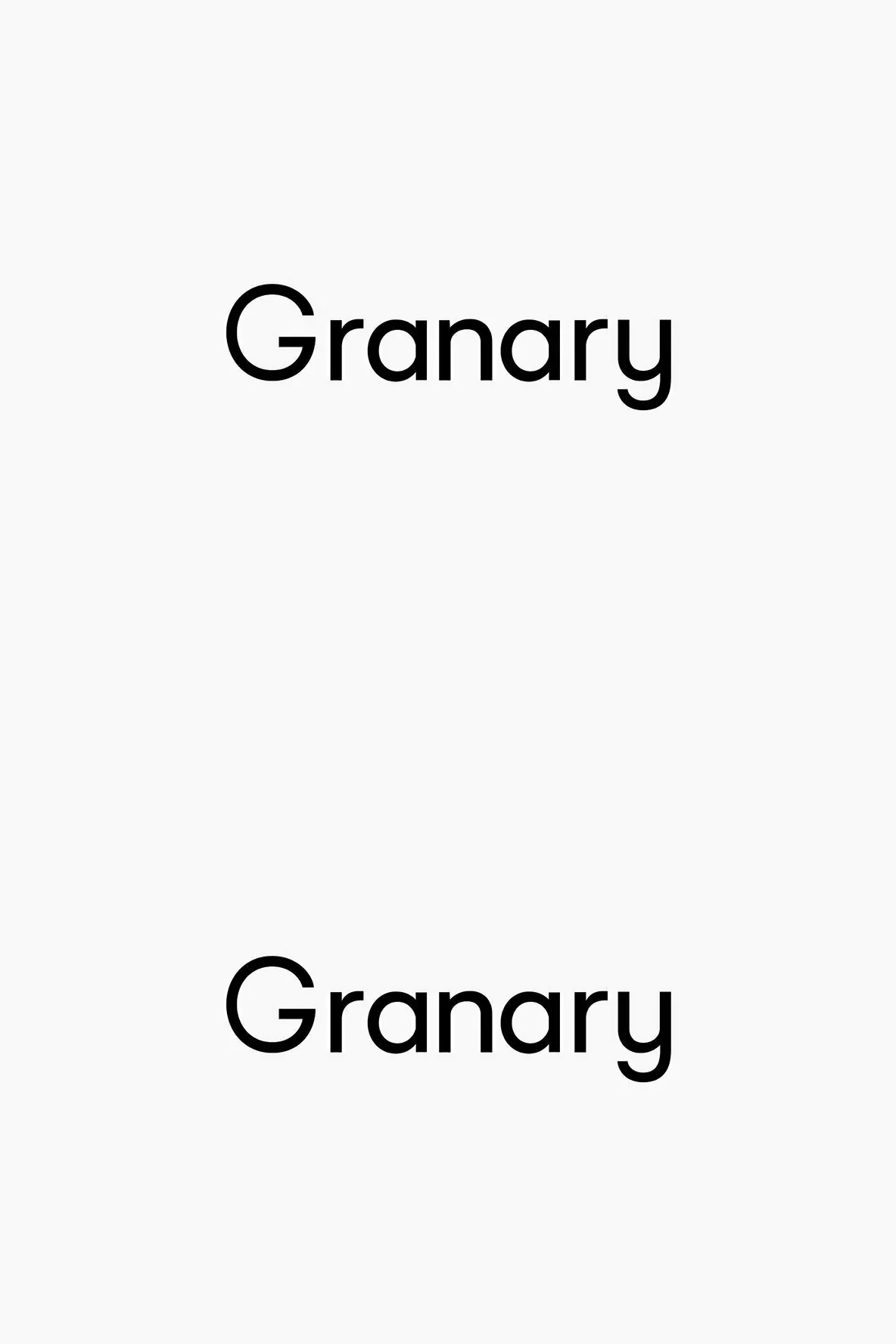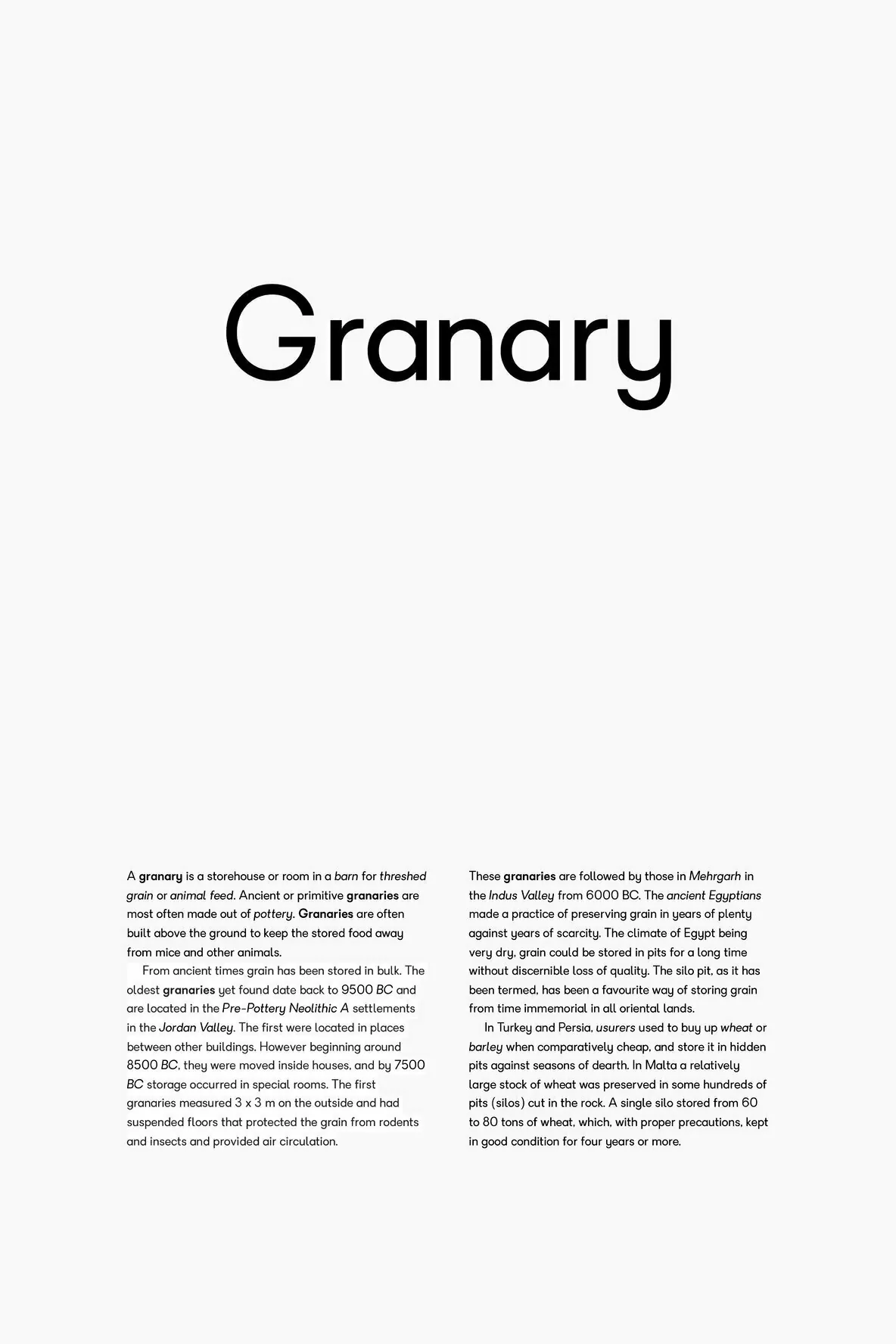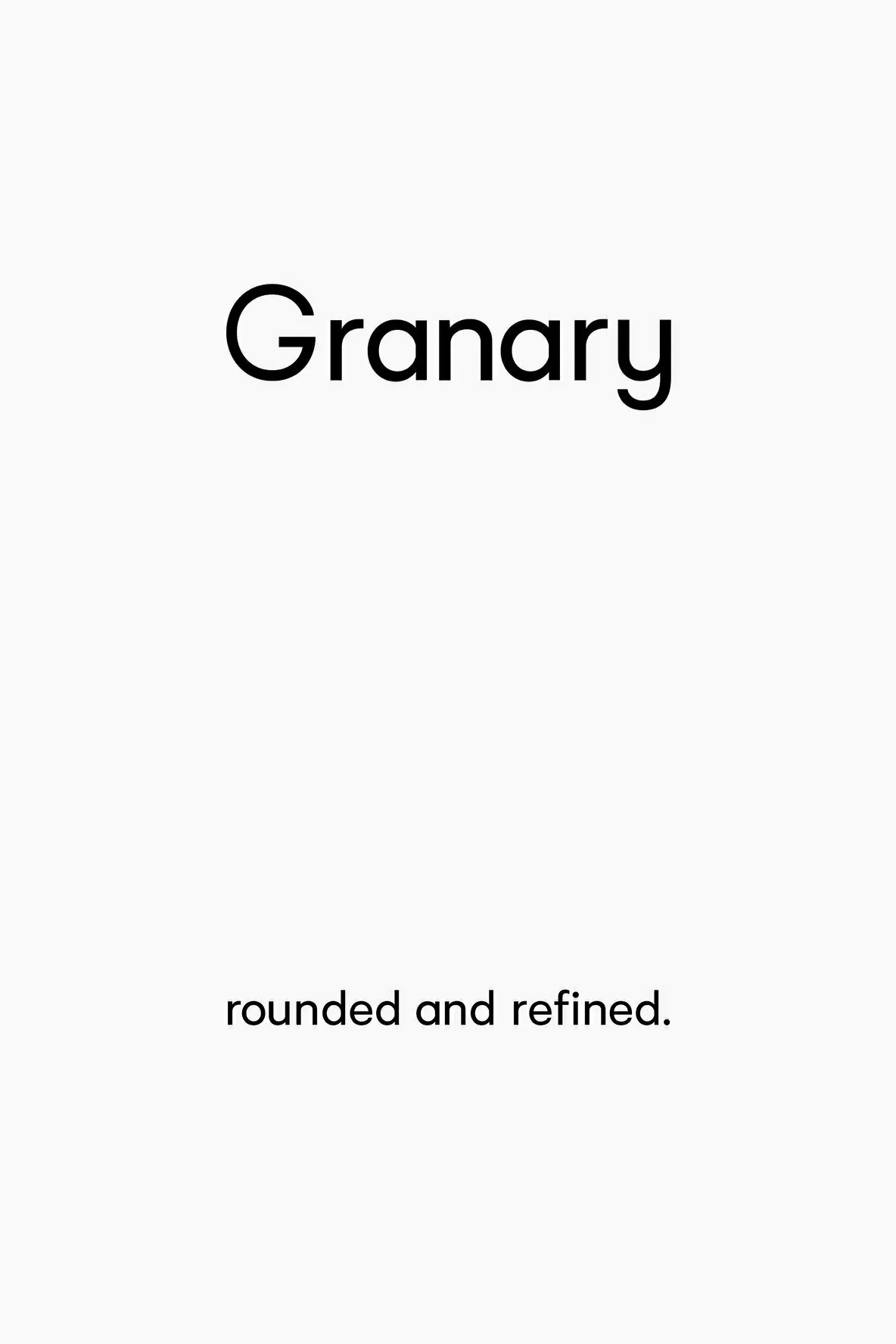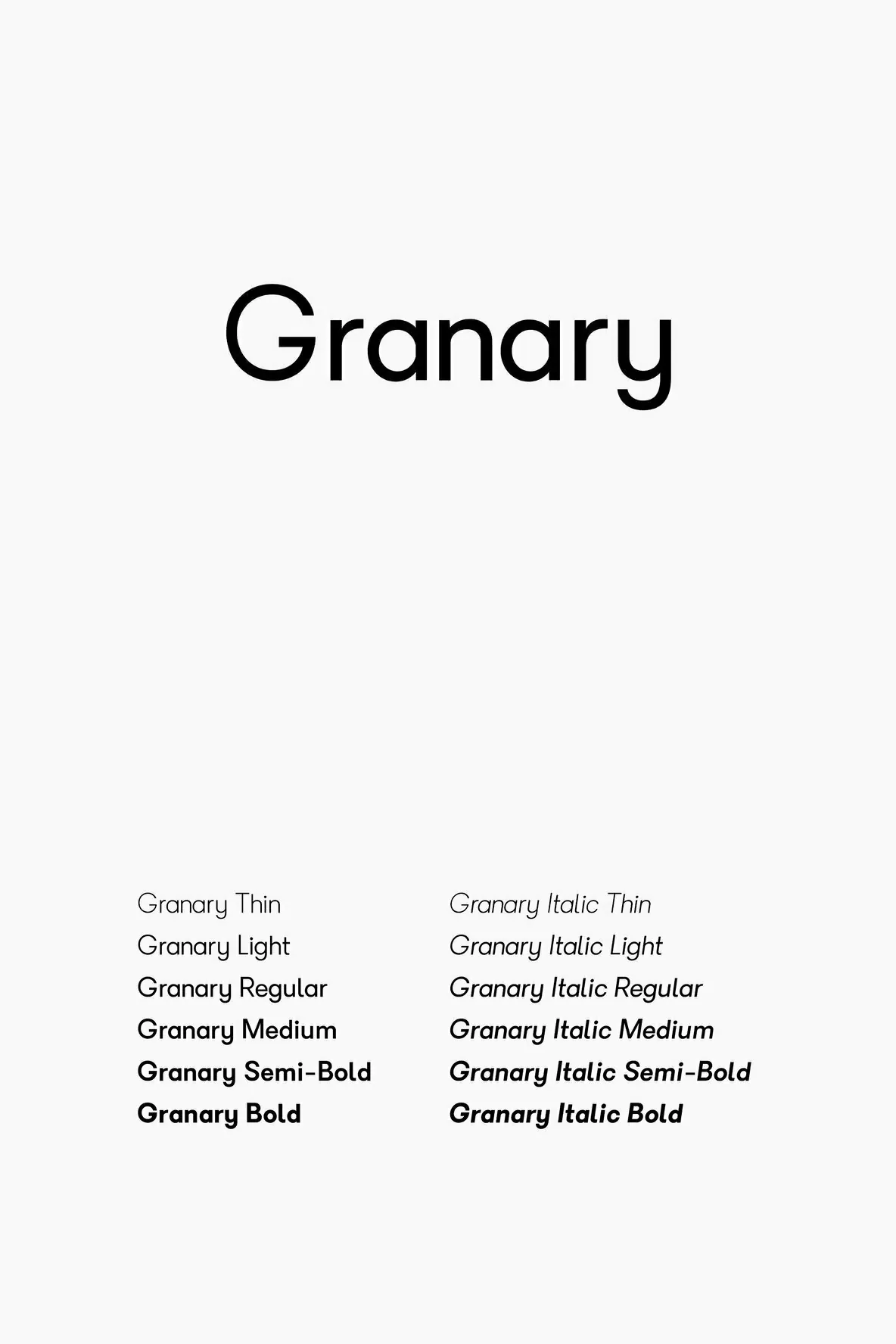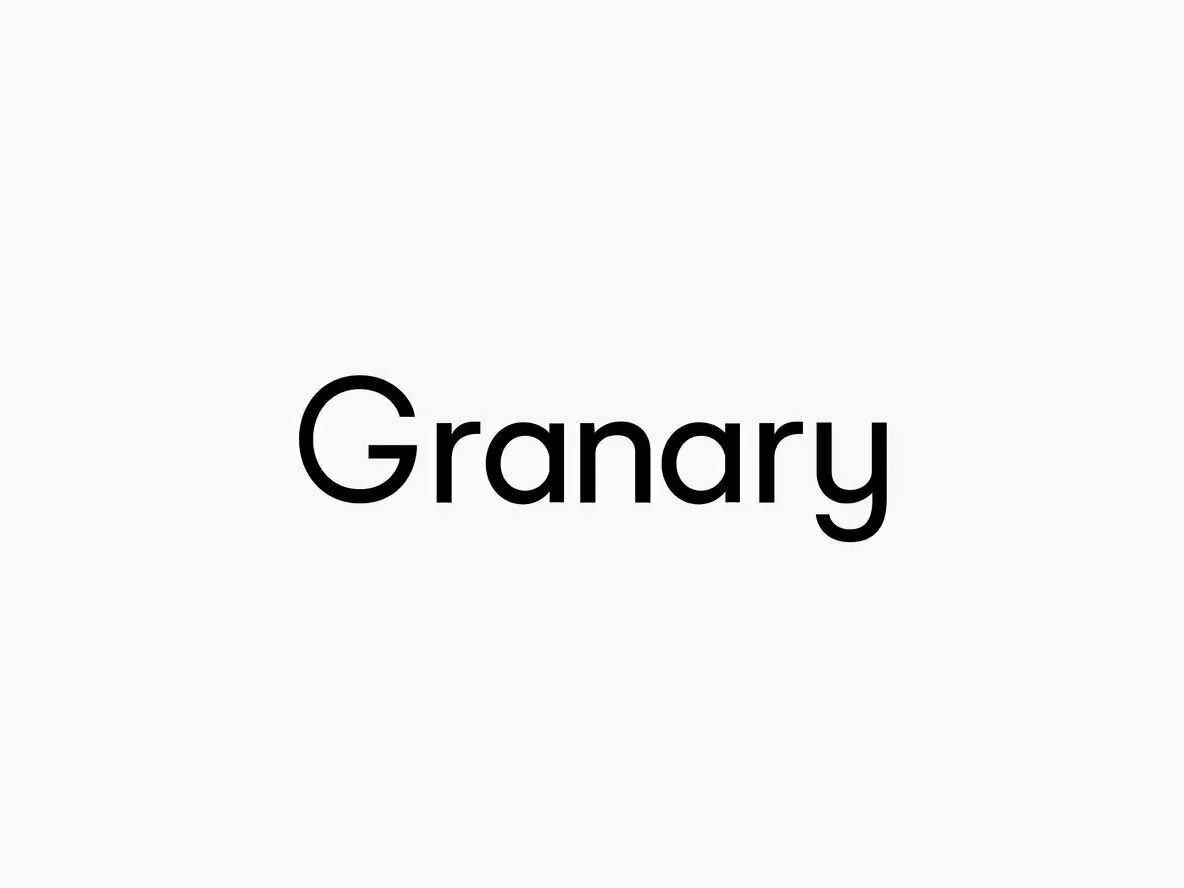
Granary Typeface Font
Granary — Low x-height, clean geometry
Granary is a clean, geometric typeface that explores a design style of low x-height and neat curves.
Its precise structure and controlled shapes suit typography that needs clarity without calling attention to itself. Use Granary for editorial design, branding, interfaces, and systems where consistent spacing and calm rhythm matter.
Granary’s geometry reads confidently at a range of sizes, while its low x-height and smooth curves give it a distinct, considered voice. It works well when you want modern letterforms with restraint and a tidy finish.